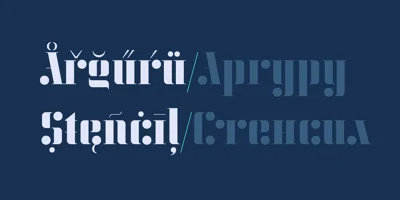
KD Arguru Stencil Font
KD Arguru Stencil Font is ideal for military branding, industrial signage, street art projects, urban design, shipping companies, tactical gear brands, and utilitarian visual communications. This commanding typeface brings stencil functionality and industrial strength to practical design applications.
KD Arguru Stencil Font is exciting because it combines classic stencil utility with contemporary design precision, featuring cut-out letterforms that convey industrial efficiency and tactical reliability while maintaining exceptional clarity and functional appeal across utilitarian applications.
The KD Arguru Stencil Font family includes multiple weights and stencil variations that reflect the practical character of industrial typography. This functional collection provides designers with utilitarian options for creating memorable and industrially authentic brand experiences.
KD Arguru Stencil Font provides access to a functionally crafted typeface that embodies the practical efficiency and industrial strength of traditional stencil lettering systems. This utilitarian font features precisely cut letterforms with stencil functionality that create immediate associations with military precision, industrial efficiency, and tactical reliability. The typeface showcases functional proportions and industrial aesthetics that enhance practical communications while maintaining professional durability and broad accessibility. Its stencil character makes it particularly suitable for industrial brands and tactical organizations that require typography capable of conveying functional efficiency, industrial strength, and utilitarian reliability. KD Arguru Stencil Font delivers exceptional industrial impact for applications where decorative fonts feel inappropriate for practical communications and utilitarian branding. The font's functional appeal and industrial aesthetic make it an essential tool for designers working on projects that require typographic expression of industrial efficiency, tactical precision, and utilitarian strength that resonates with audiences seeking authentic industrial experiences and functional visual communication.